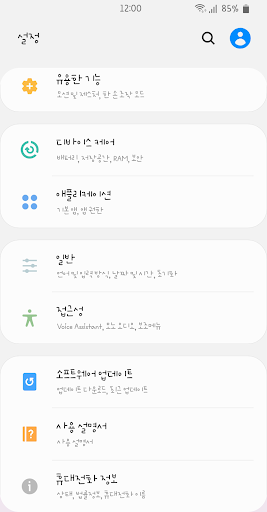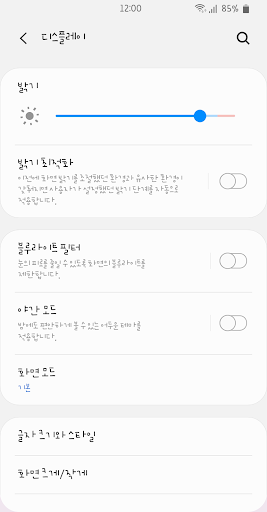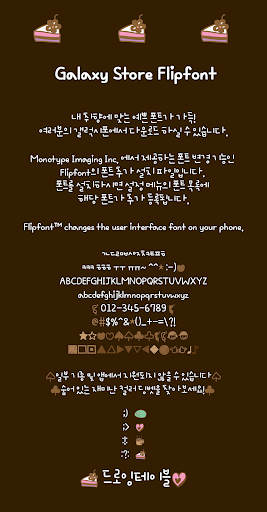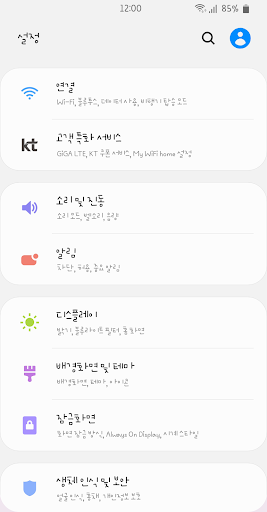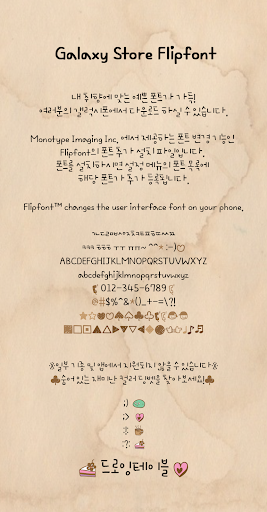
It is characterized by the natural shape of the graphemes.
The text line is set as the visual flow at the top, and the readability is also set when used as a long text
It's made so that it's not visually difficult.
There's a special hidden dingbet hidden, so please look for it. :>